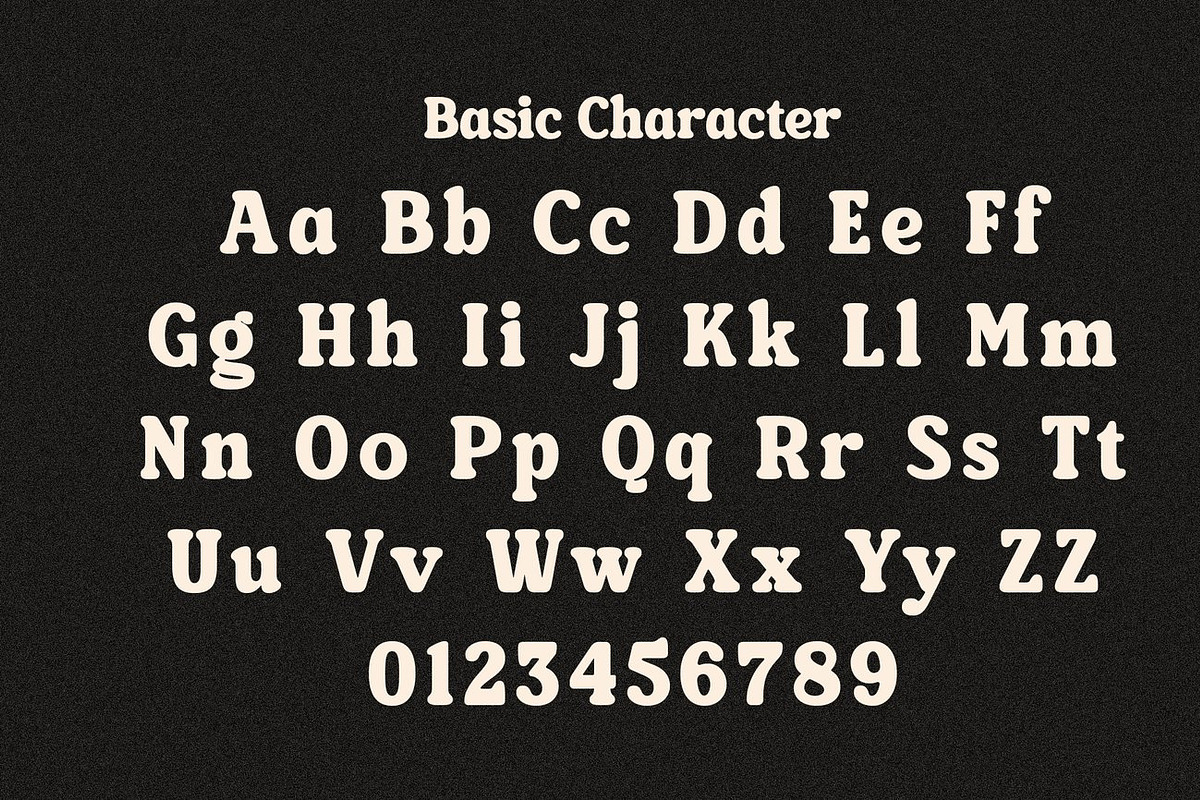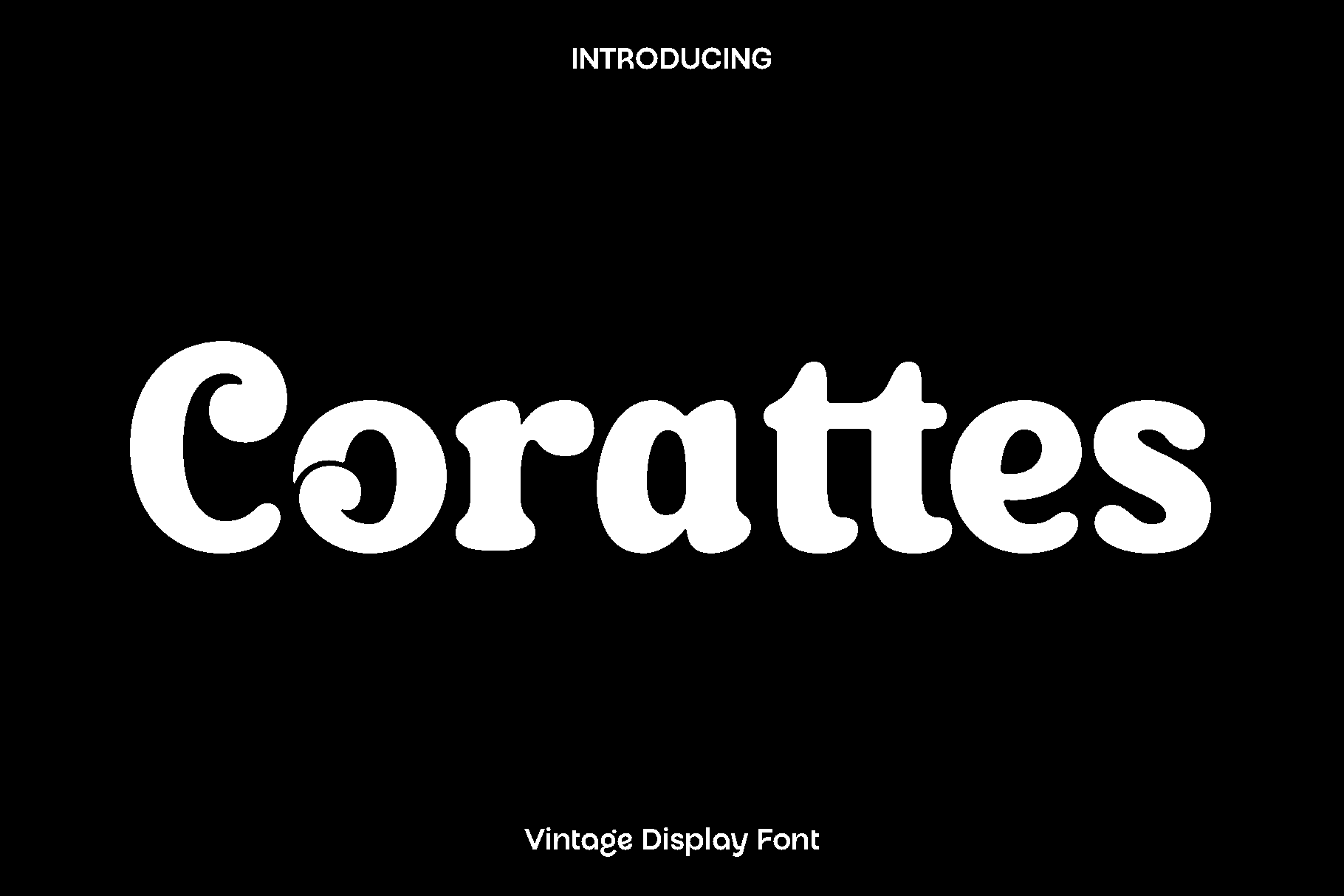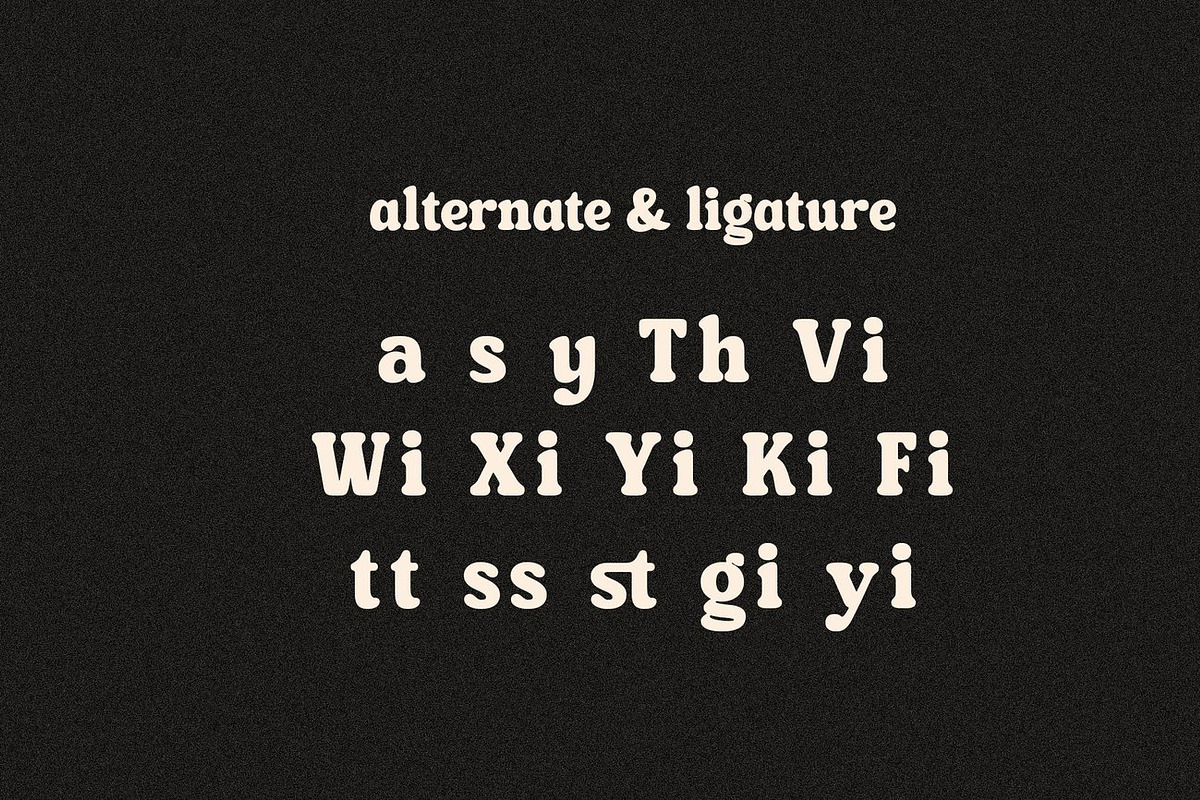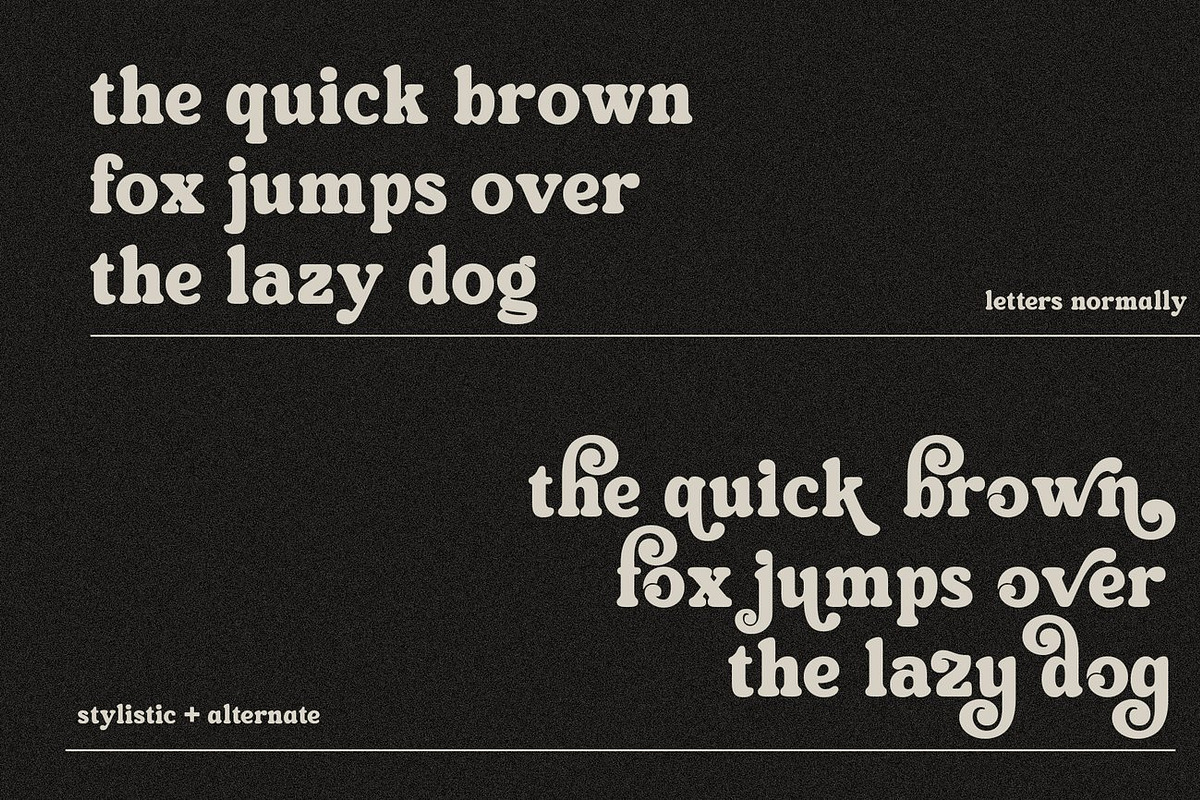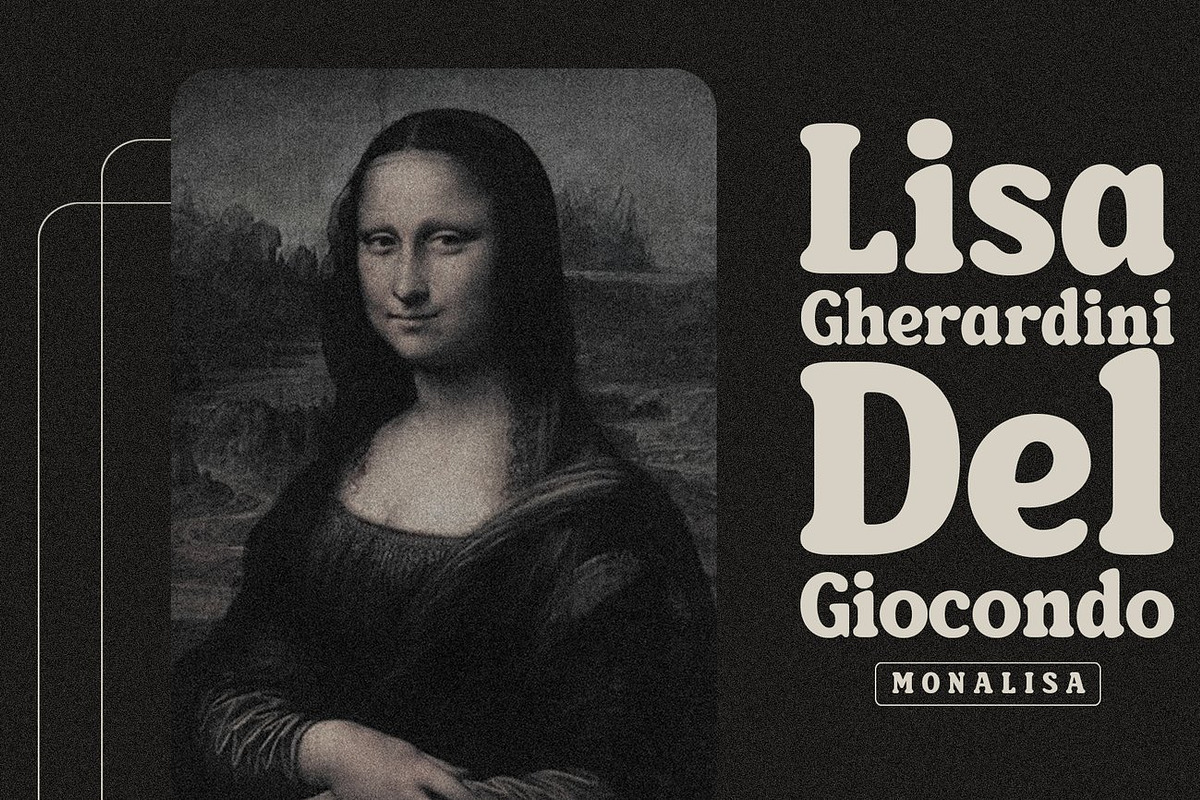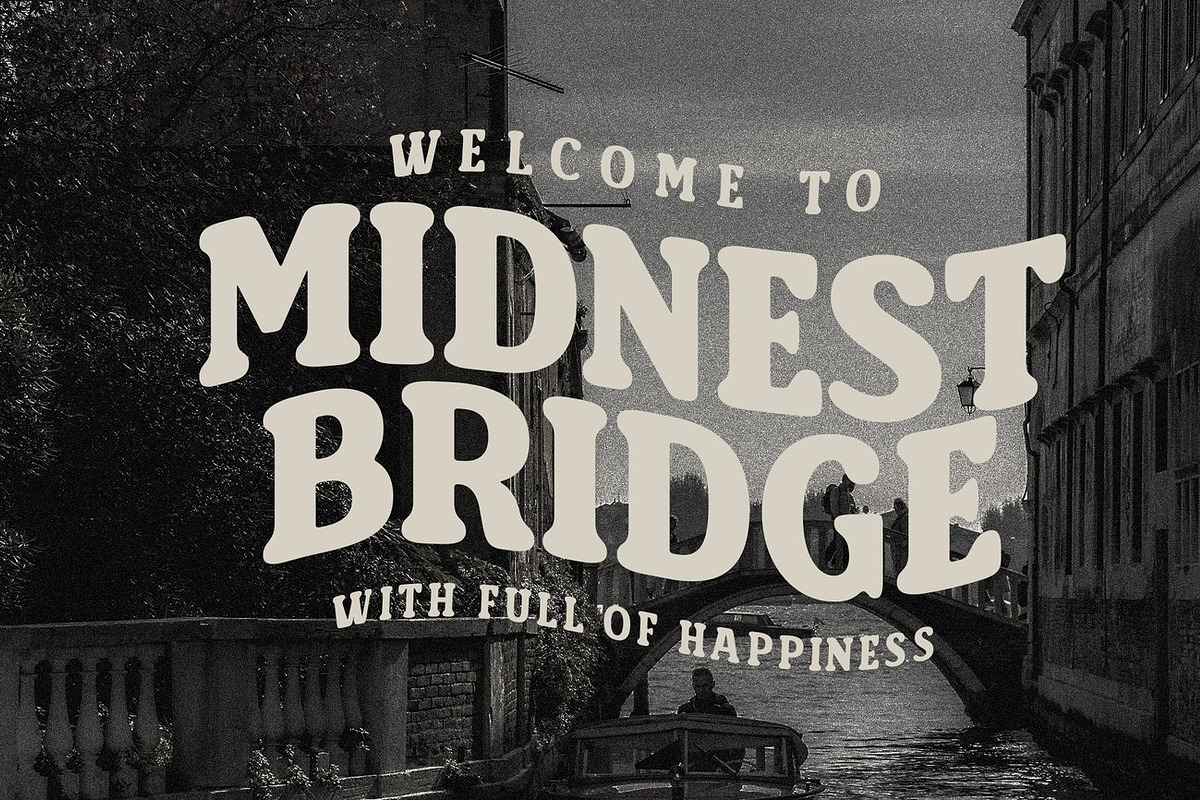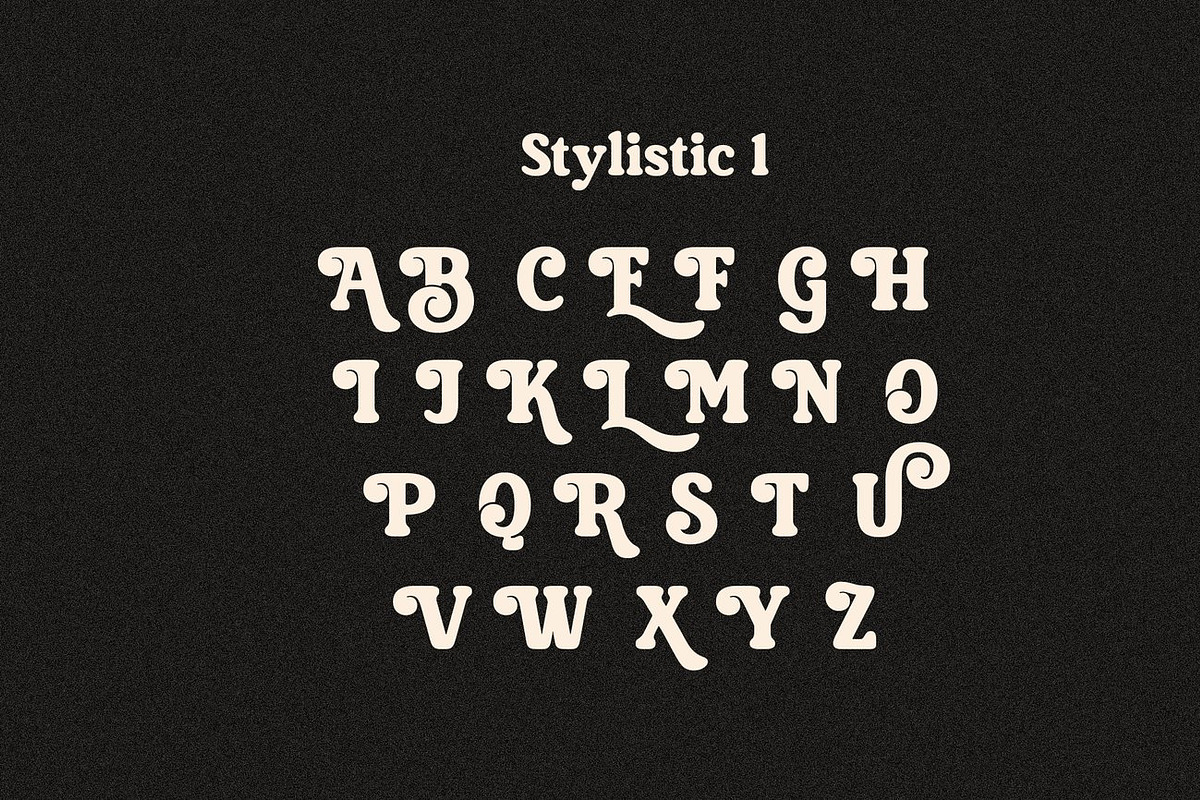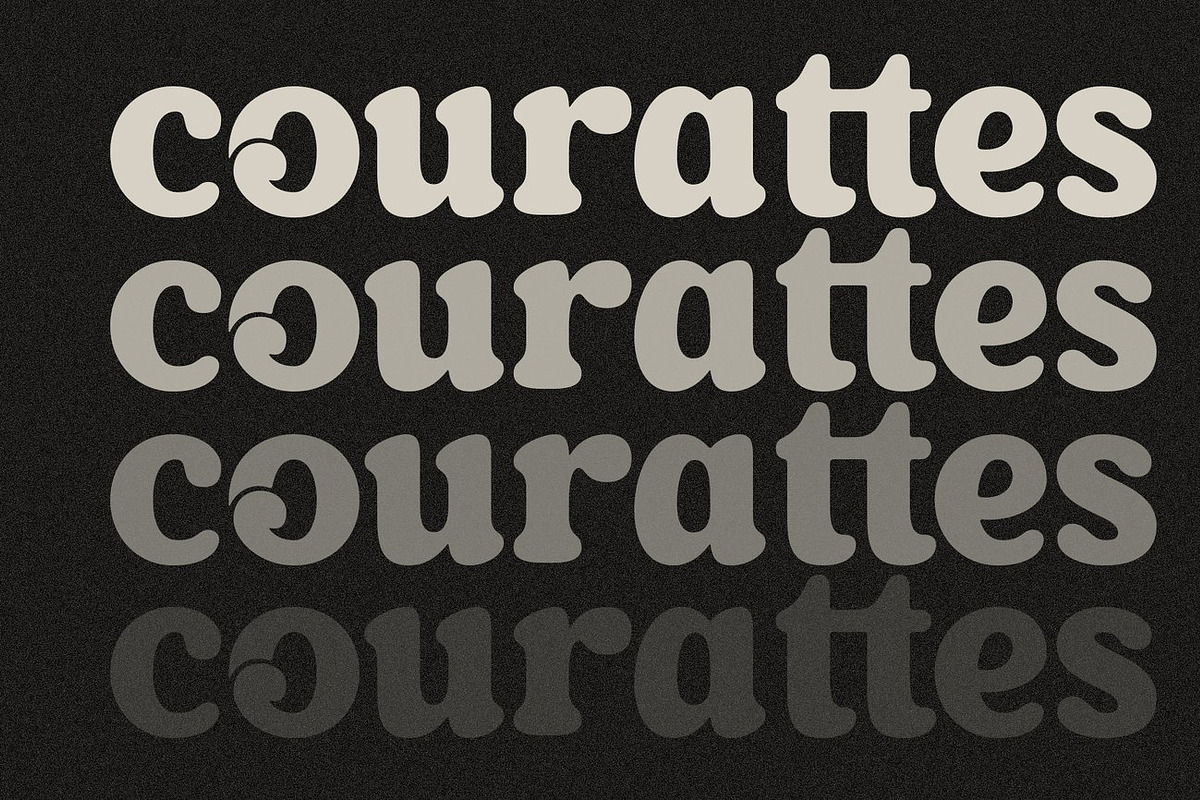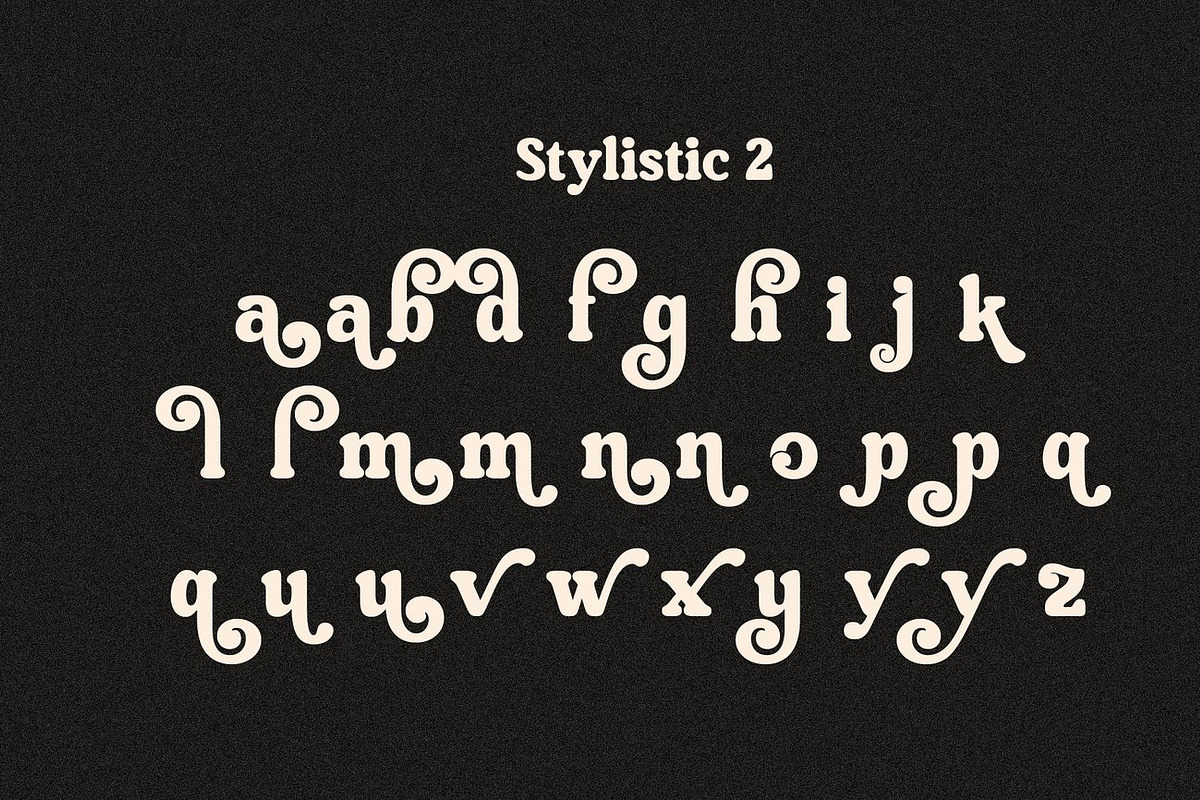
Corattes Elegant Serif Font
Corattes is a stylish and expressive font created to bring character, warmth, and creativity into every design. Crafted with a balance of modern elegance and timeless charm, Corattes was designed for creators who want their typography to feel personal, confident, and visually engaging. Its smooth curves and refined details give each letter a graceful presence that instantly enhances your layouts.
This font truly shines across a wide range of creative projects. From book covers and magazine titles to branding, logos, photography overlays, quotes, blog headers, posters, and advertisements, Corattes adapts beautifully to both digital and print designs. It feels sophisticated yet approachable, making it perfect for projects that need to connect emotionally while maintaining a polished look.
Corattes brings a sense of creativity and clarity to your work. Its versatile nature allows it to move effortlessly between bold headlines and stylish supporting text, giving designers the freedom to build strong visual identities with ease. Whether you are creating for lifestyle brands, editorial layouts, or promotional campaigns, Corattes delivers a memorable and elegant typographic voice.
Corattes Font Features:
• Elegant and versatile letterforms
• Ideal for branding, editorial, and creative projects
• Uppercase and lowercase
• OpenType features
• Suitable for print and digital use